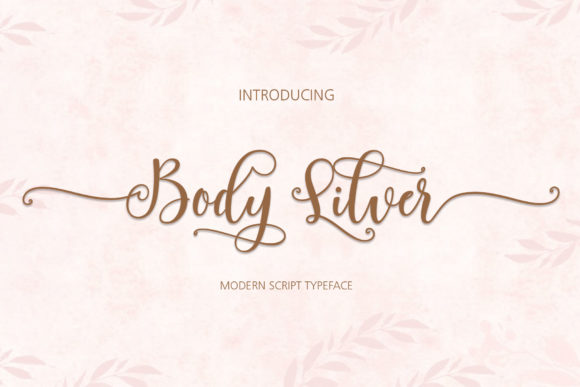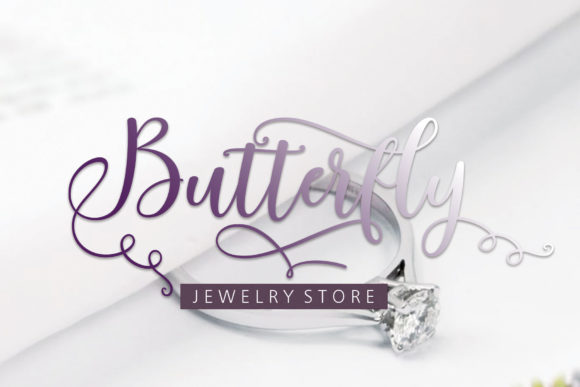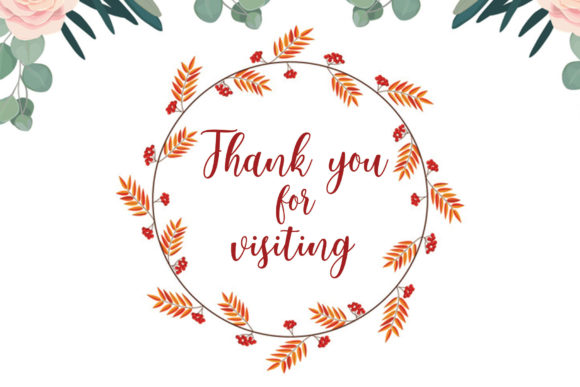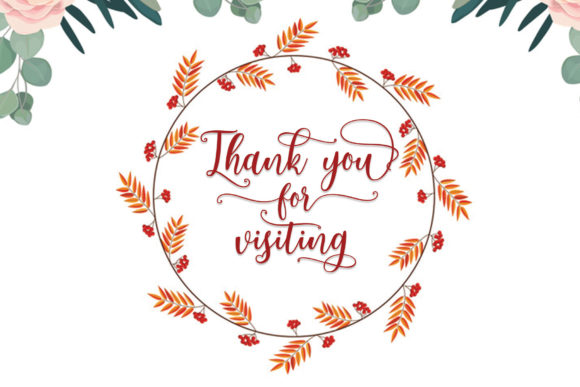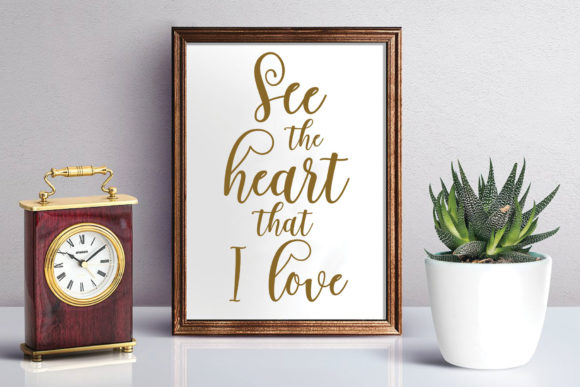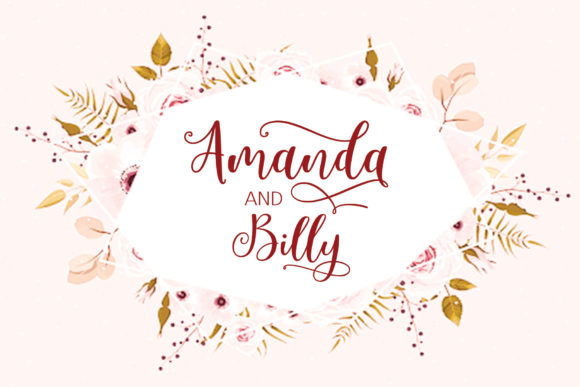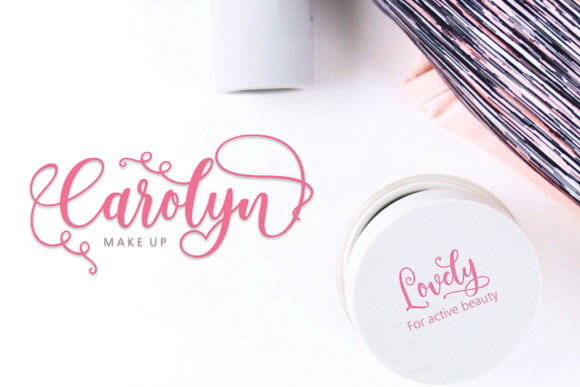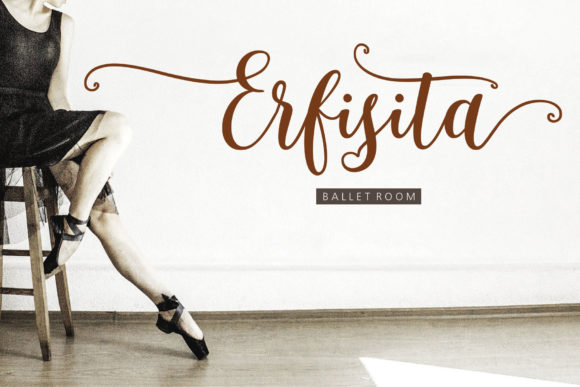
Body Silver Font
The Body Silver is a fresh and modern script with a handmade calligraphy style, decorative characters and a dancing baseline!
It’s perfect for invitations, greeting cards, branding materials, business cards, quotes, posters, and more!